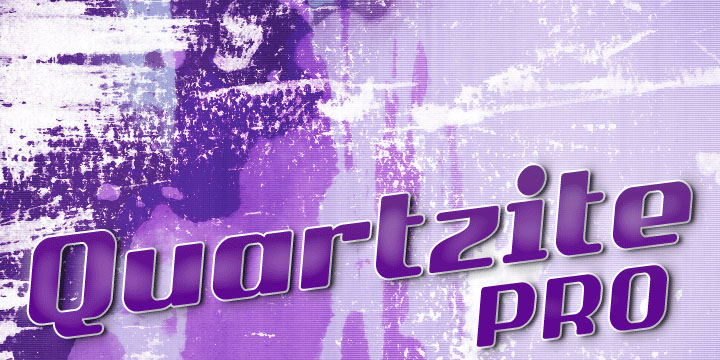
SF Quartzite Pro Font
SF Quartzite Pro Font is perfect for professional corporate branding, sophisticated marketing materials, premium business communications, elegant editorial design, high-end packaging solutions, luxury brand identities, refined web interfaces, executive presentations, distinguished publishing projects, and prestigious institutional communications.
What makes SF Quartzite Pro Font so exciting is its professional excellence that combines crystalline clarity with sophisticated refinement, creating typography that embodies premium quality and uncompromising professional standards. This distinguished typeface represents the pinnacle of professional typography, delivering visual communication that commands respect and establishes instant credibility.
The SF Quartzite Pro Font family includes light, regular, medium, bold, and black weights, complete with professional design features, premium styling options, and sophisticated elements that provide designers with comprehensive tools for creating distinguished and memorable typography that defines professional excellence.
Achieve professional distinction with SF Quartzite Pro Font Free Download, a masterfully engineered typeface that brings crystalline clarity and premium sophistication to professional design projects. This exceptional font embodies the perfect fusion of professional authority and refined elegance, making it the definitive choice for brands that demand typography reflecting the highest standards of professional excellence.
The precisely crafted letterforms of SF Quartzite Pro Font showcase professional elegance with sophisticated character that creates instant recognition of premium quality and institutional authority. Each character displays meticulous attention to maintaining the crystalline clarity that defines professional excellence while ensuring superior readability and professional versatility. The font's refined construction and professional spacing contribute to its distinguished appearance and premium appeal.
Corporate leaders and professional organizations consistently choose SF Quartzite Pro Font for projects requiring uncompromising quality and professional distinction. The comprehensive character set includes uppercase and lowercase letters, numerals, extensive punctuation, international accents, and professional elements that provide complete support for premium branding applications and sophisticated professional design compositions.
The professional excellence of SF Quartzite Pro Font ensures exceptional performance across both traditional print and modern digital platforms. Whether developing corporate brand identities, creating premium marketing materials, or designing sophisticated business communications, this remarkable typeface delivers consistent distinction that resonates with audiences seeking professional quality and institutional credibility.